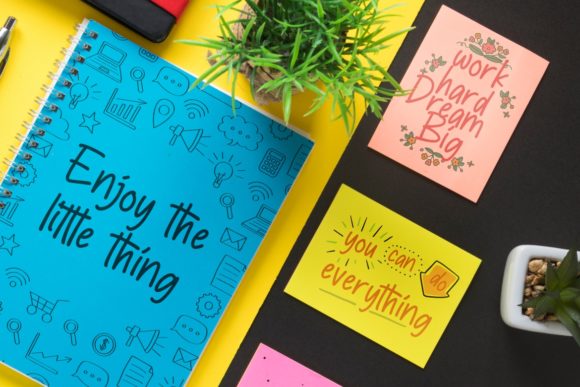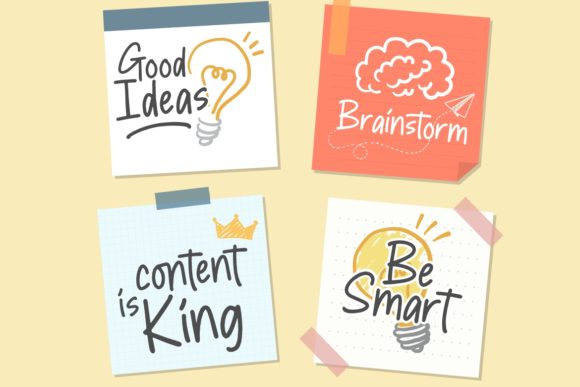
Sticky Marker Font
db-ku.com - Script & Handwritten -- Sticky Marker is a simple and friendly handwritten font. Cool and trendy, this font will make each of your designs stand out. Sticky Marker is PUA encoded which means you can access all of the glyphs and swashes with ease!